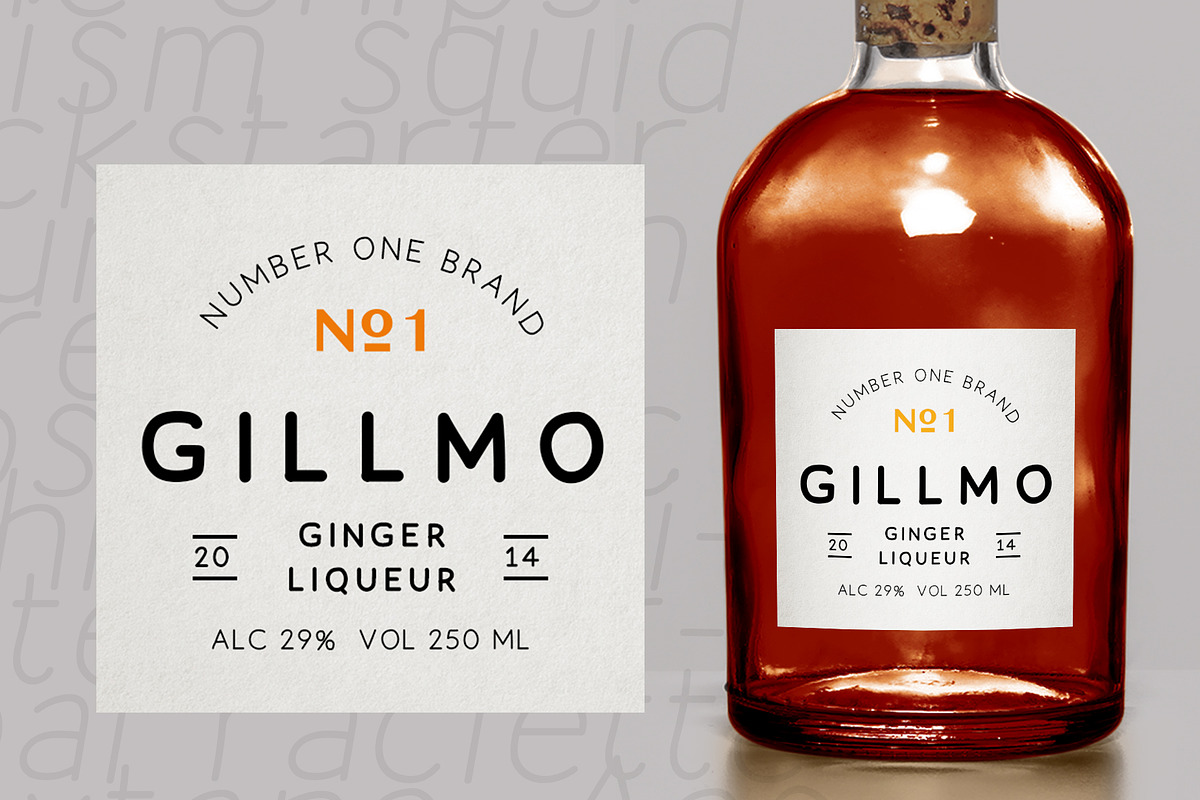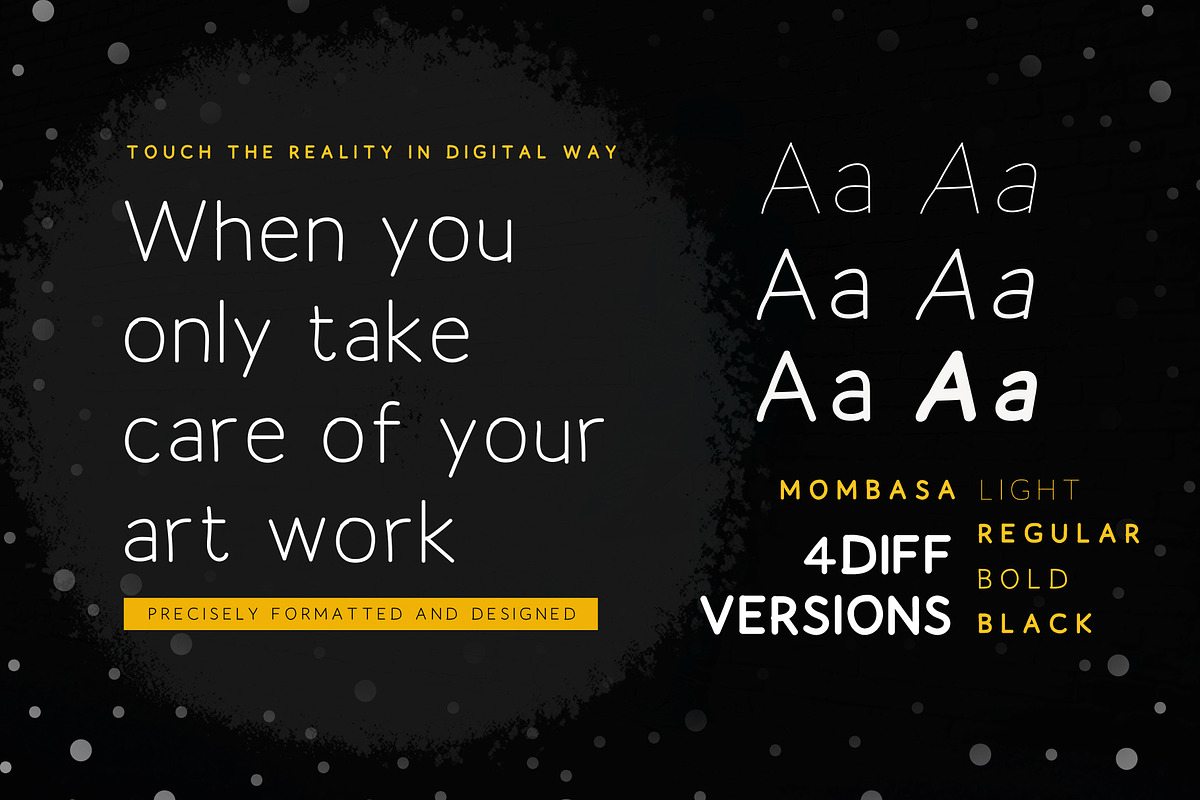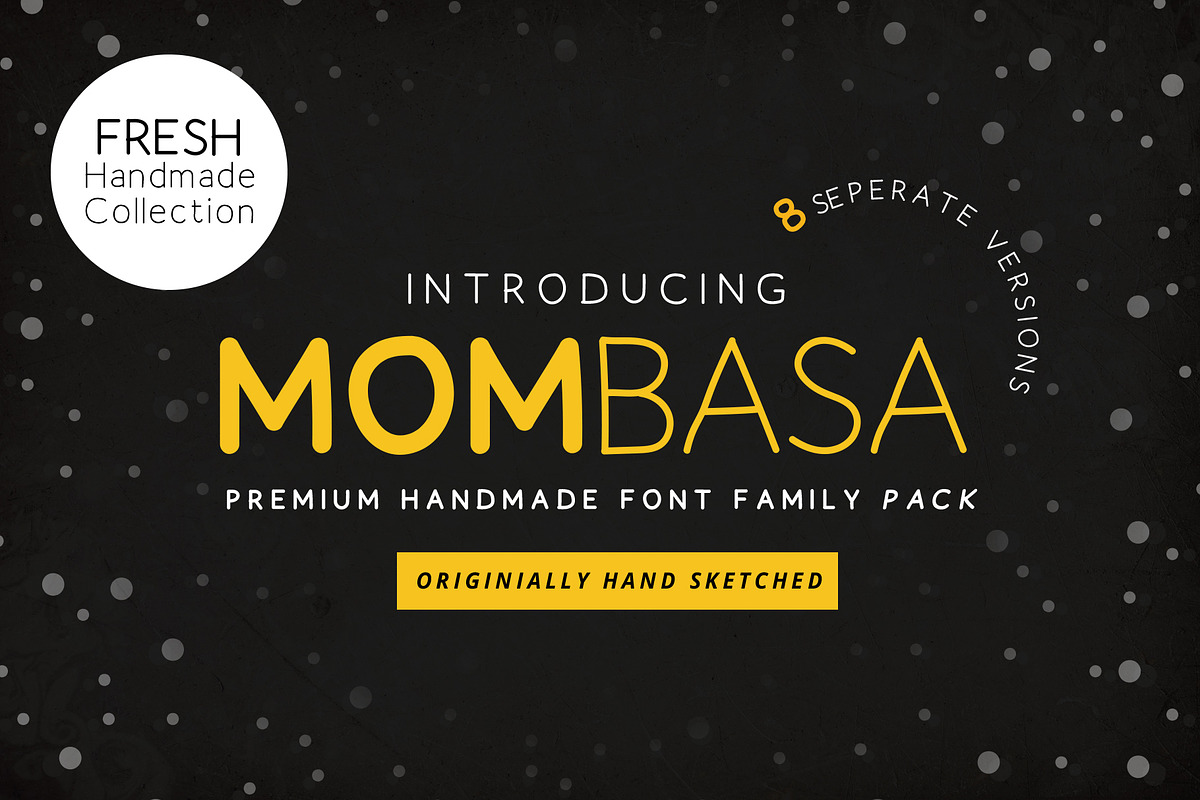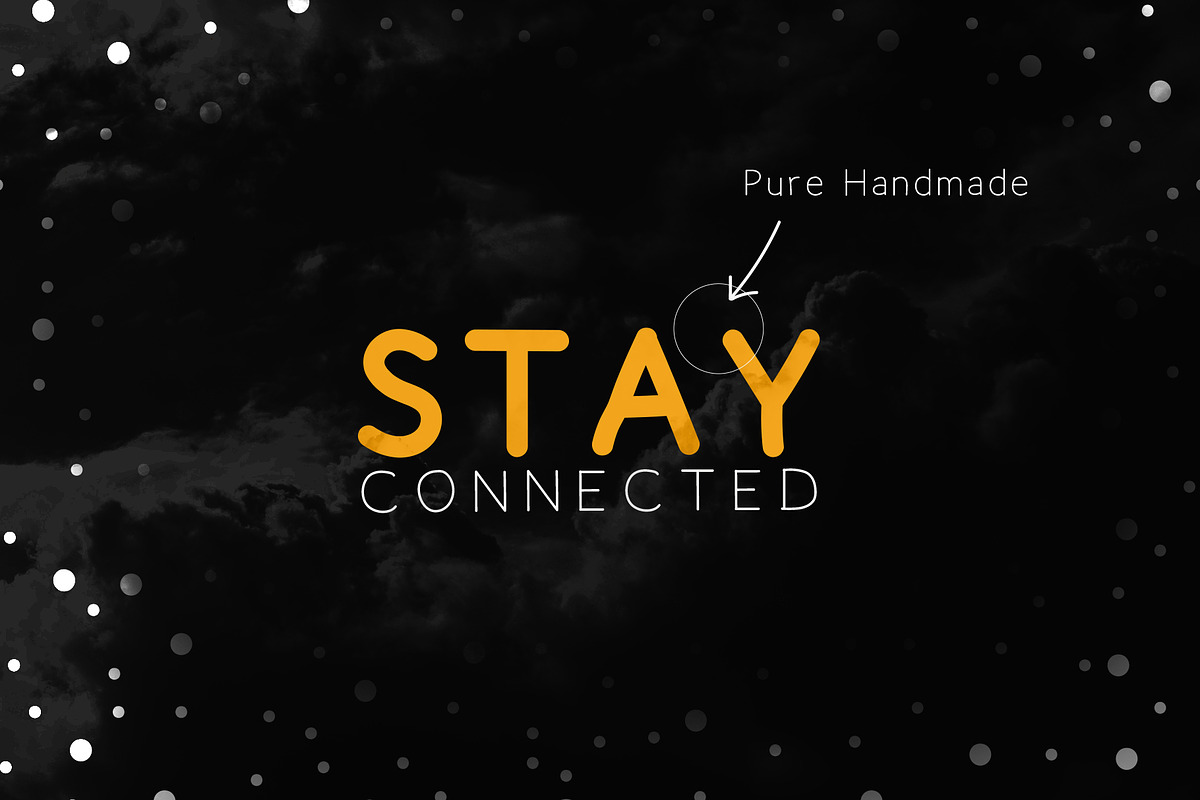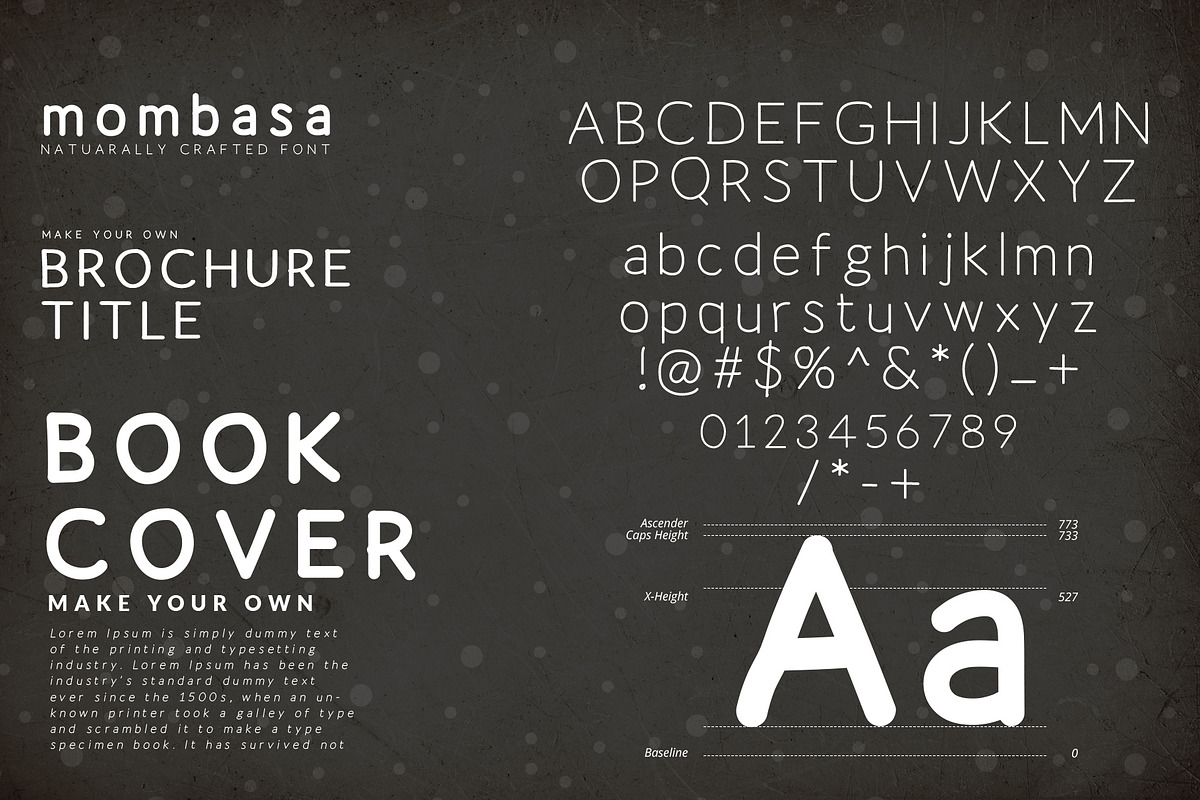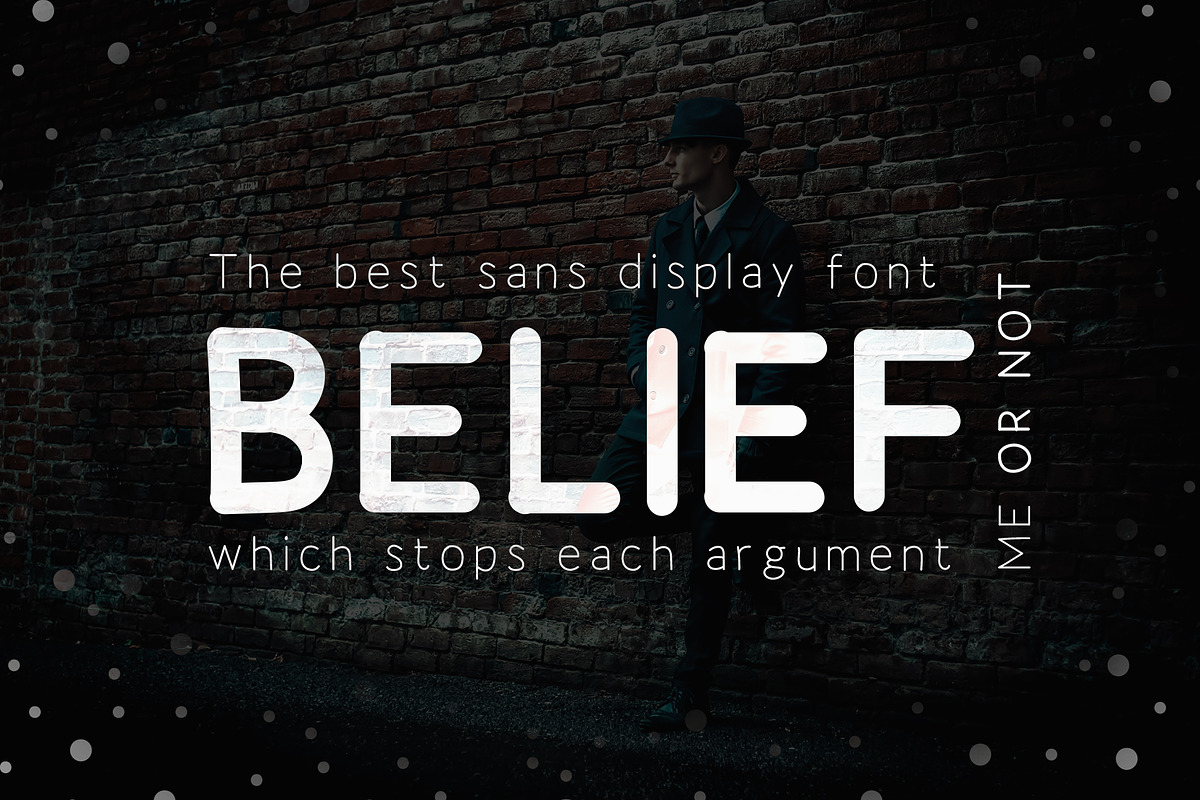
Mombasa Hand Drawn Font Family
Let explore your inner creativity with the use of latest Mombasa hand-drawn font family - a versatile handcrafted font family pack with 8 different styles included.
Very much useful to create bold titles of packaging, magazine, great quotes, printable items, media and creative branding design.
Mombasa font family is coming with four eight different versions i.e
Mombasa Regular Italic
Mombasa Hand Drawn Font Family by Designertale fits naturally into Branding, posters, packaging, typography.